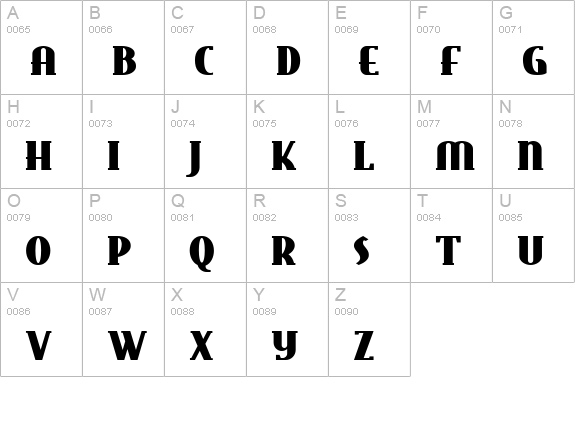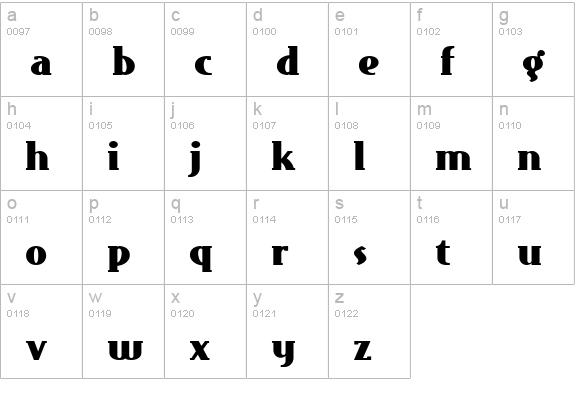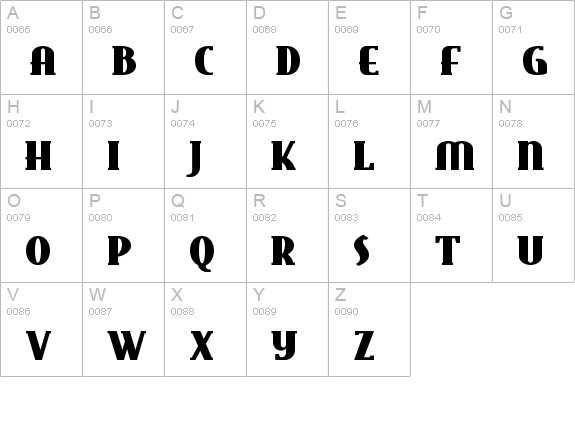
East Market NF is a versatile and stylish font that exudes a touch of sophistication and elegance. With its clean lines and modern design, this font is perfect for a wide range of projects, from branding to digital design. The sleek and contemporary look of East Market NF makes it ideal for creating eye-catching headlines, logos, and other design elements. One of the best things about East Market NF is that it is completely free to download at FontsMarket.com. This means that you can easily add this stunning font to your collection without having to spend a penny. Whether you're a professional designer looking to enhance your projects or a hobbyist looking to experiment with different fonts, East Market NF is a fantastic choice that won't break the bank. With its unique style and versatility, East Market NF is sure to become a go-to font in your design toolkit. Download it for free today at FontsMarket.com and start creating stunning designs that stand out from the crowd.